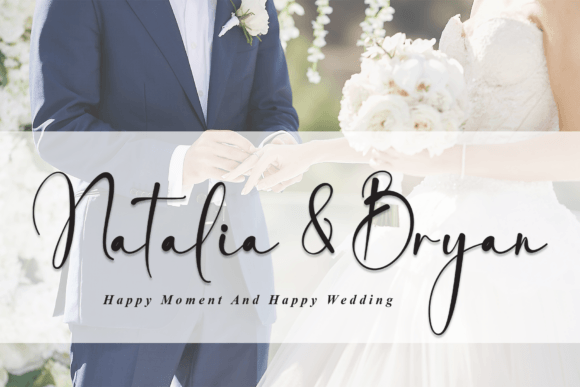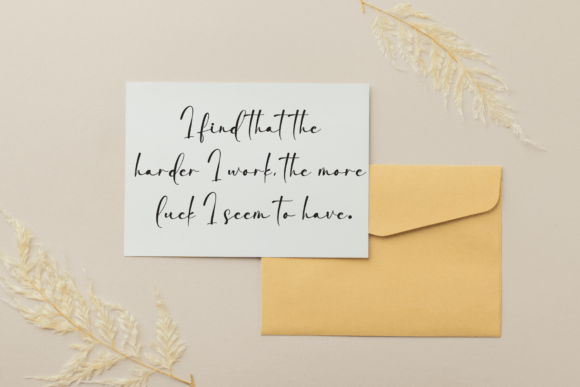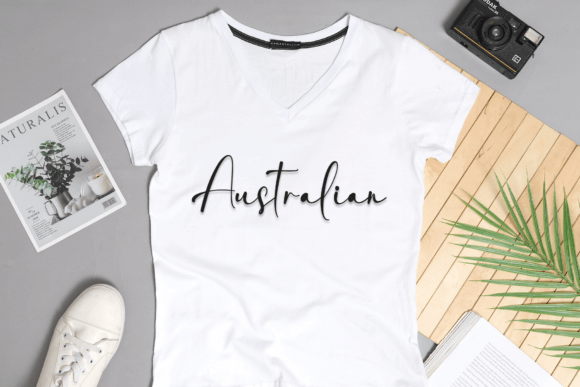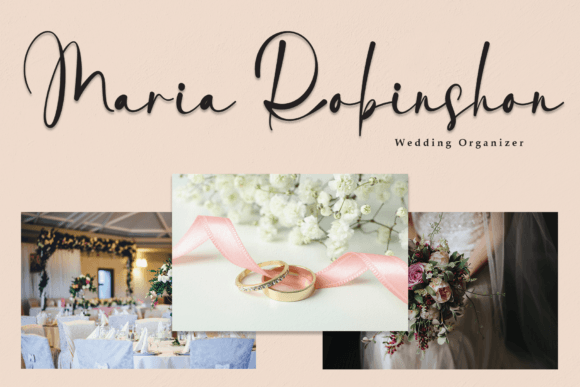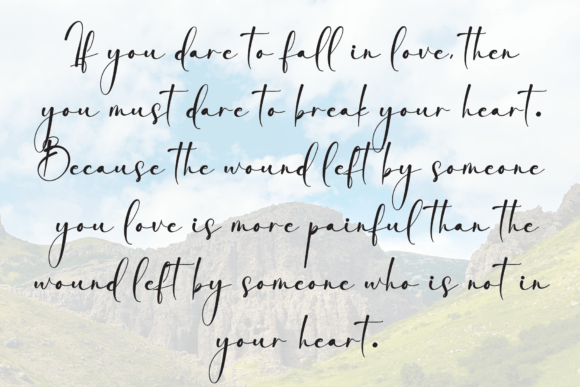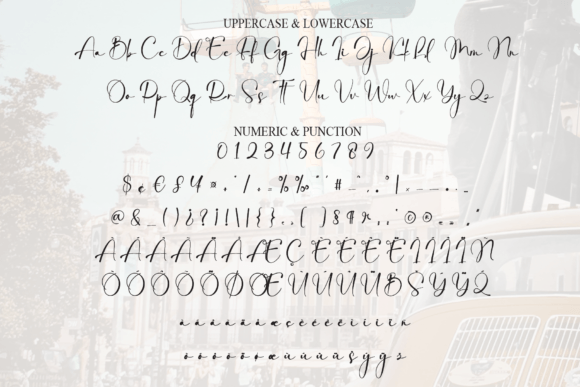
Casual Vintage Font: Elevate Your Designs with Elegance and Charm
Are you looking for a font that adds a touch of sophistication and warmth to your designs? Look no further than the Casual Vintage Font, a stylish handwritten script font that exudes elegance and charm. With its fluid strokes and natural flow, this font creates a captivating and refined look that’s perfect for a variety of design projects.
The Characteristics of Casual Vintage Font
Casual Vintage Font is a beautifully crafted handwritten script font that boasts a range of characteristics that make it stand out from the crowd. Its fluid strokes and natural flow give it a sense of movement and energy, while its elegant letterforms evoke a sense of sophistication and refinement. The font’s casual, yet stylish vibe makes it perfect for adding a personal touch to invitations, branding, social media, and more.
Uses for Casual Vintage Font
Casual Vintage Font is a versatile font that can be used in a wide range of design projects. Here are just a few ideas to get you started:
- Invitations: Add a touch of elegance and sophistication to your wedding invitations, birthday party invites, or other special occasion announcements.
- Branding: Use Casual Vintage Font to create a unique and memorable brand identity for your business or product.
- Social Media: Elevate your social media posts and stories with a font that adds a touch of warmth and personality.
- Stationery: Create beautiful stationery, such as notebooks, journals, or greeting cards, with a font that’s both stylish and approachable.
Benefits of Using Casual Vintage Font
So why choose Casual Vintage Font for your design projects? Here are just a few benefits:
- Elegance: Casual Vintage Font adds a touch of sophistication and elegance to any design.
- Warmth: The font’s natural flow and fluid strokes create a sense of warmth and approachability.
- Creativity: With Casual Vintage Font, you can add a personal touch to your designs and make them stand out from the crowd.
- Versatility: This font can be used in a wide range of design projects, from invitations to branding to social media.
Tips for Using Casual Vintage Font
Here are a few tips for getting the most out of Casual Vintage Font:
- Pair it with contrasting fonts: Pair Casual Vintage Font with a bold, modern font to create a striking contrast.
- Experiment with colors: Try pairing the font with a range of colors to find the perfect combination for your design.
- Use it sparingly: While Casual Vintage Font is beautiful, it can be overwhelming if used too much. Use it sparingly to create a sense of elegance and sophistication.
Casual Vintage Font is a stylish and elegant handwritten script font that’s perfect for adding a touch of sophistication and warmth to your designs. With its fluid strokes and natural flow, this font creates a captivating and refined look that’s perfect for a variety of design projects. Whether you’re a designer, crafter, or DIY enthusiast, Casual Vintage Font is a great choice for anyone looking to elevate their designs and add a personal touch.
Get Creative with Casual Vintage Font